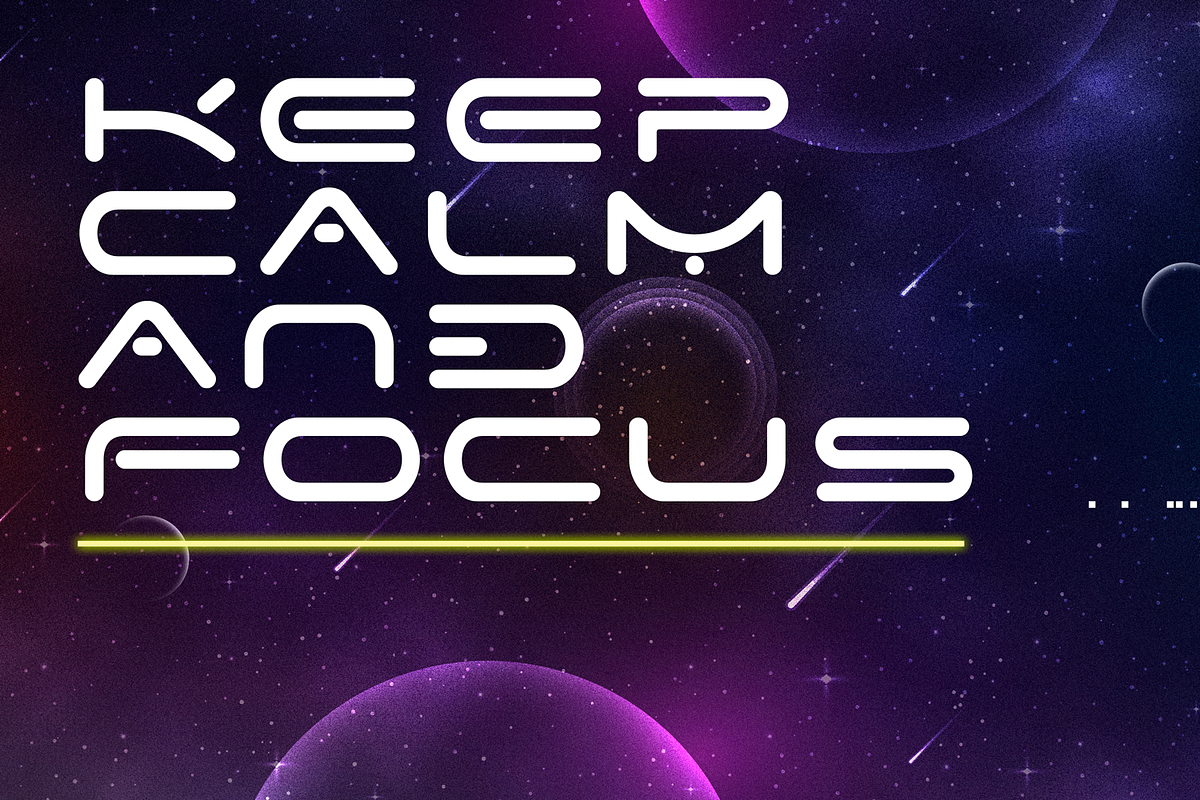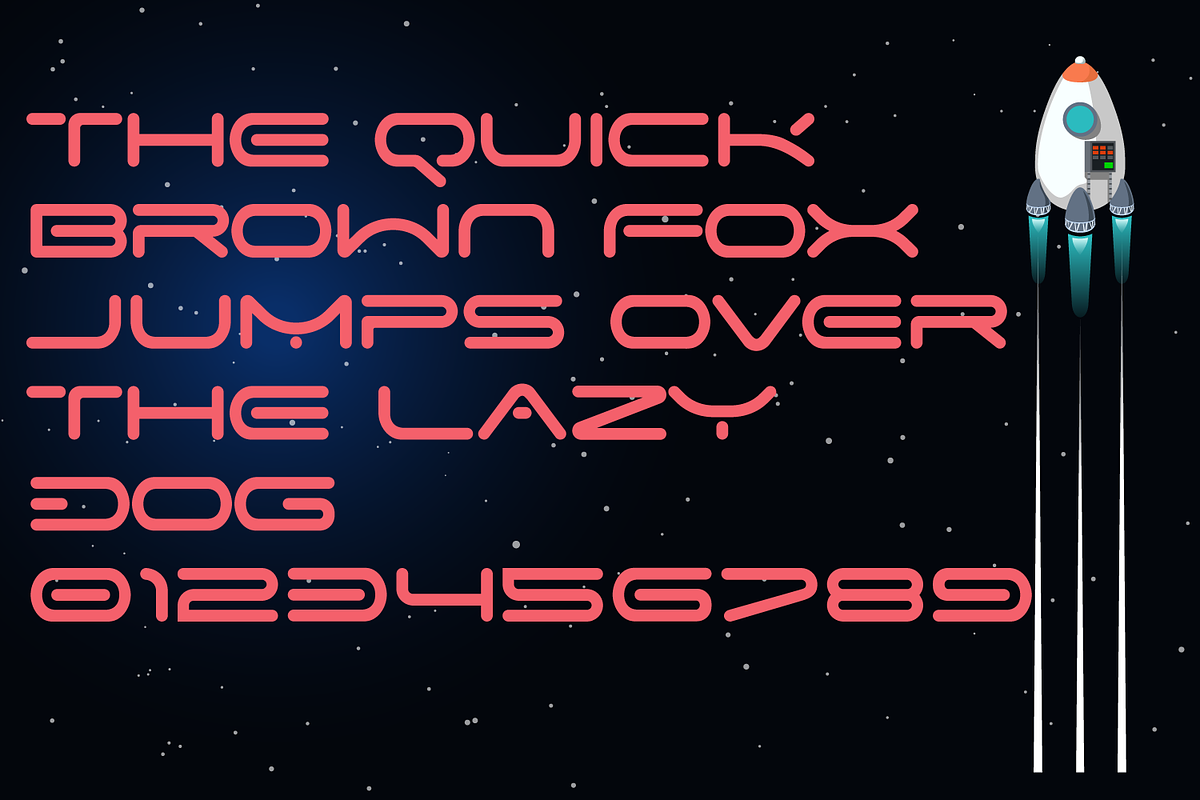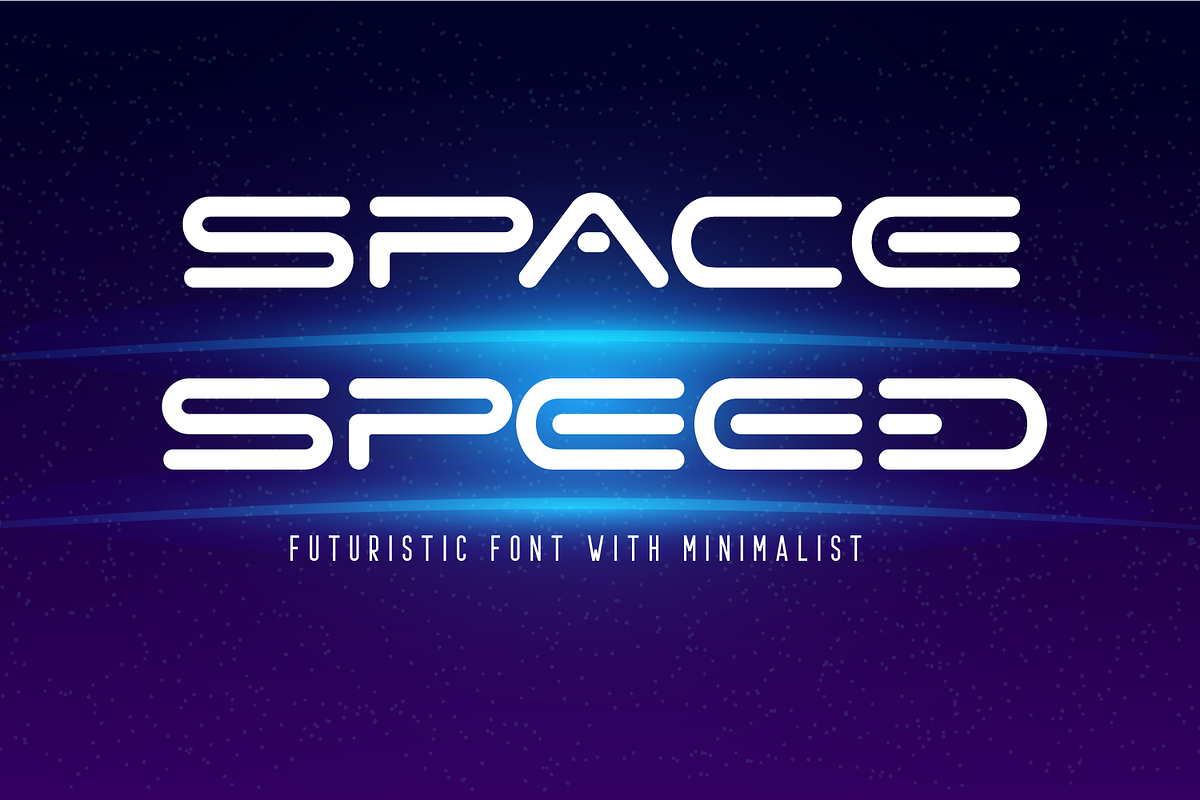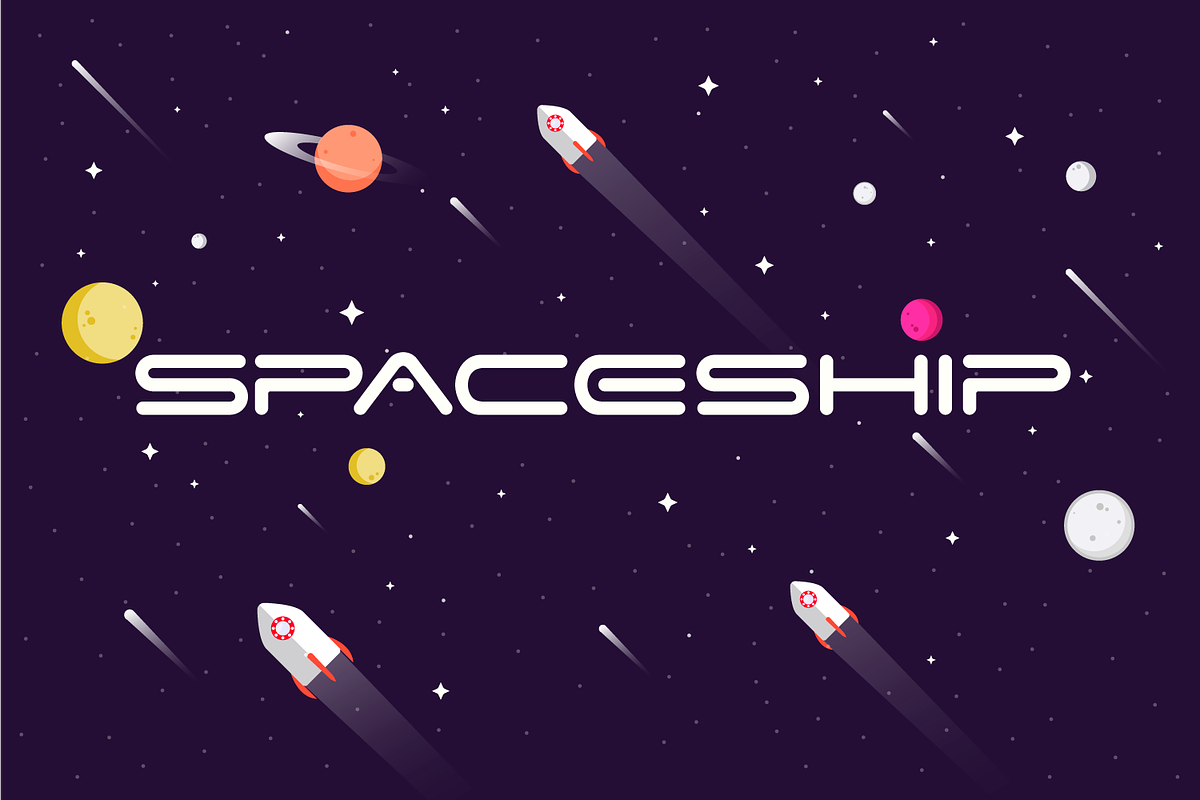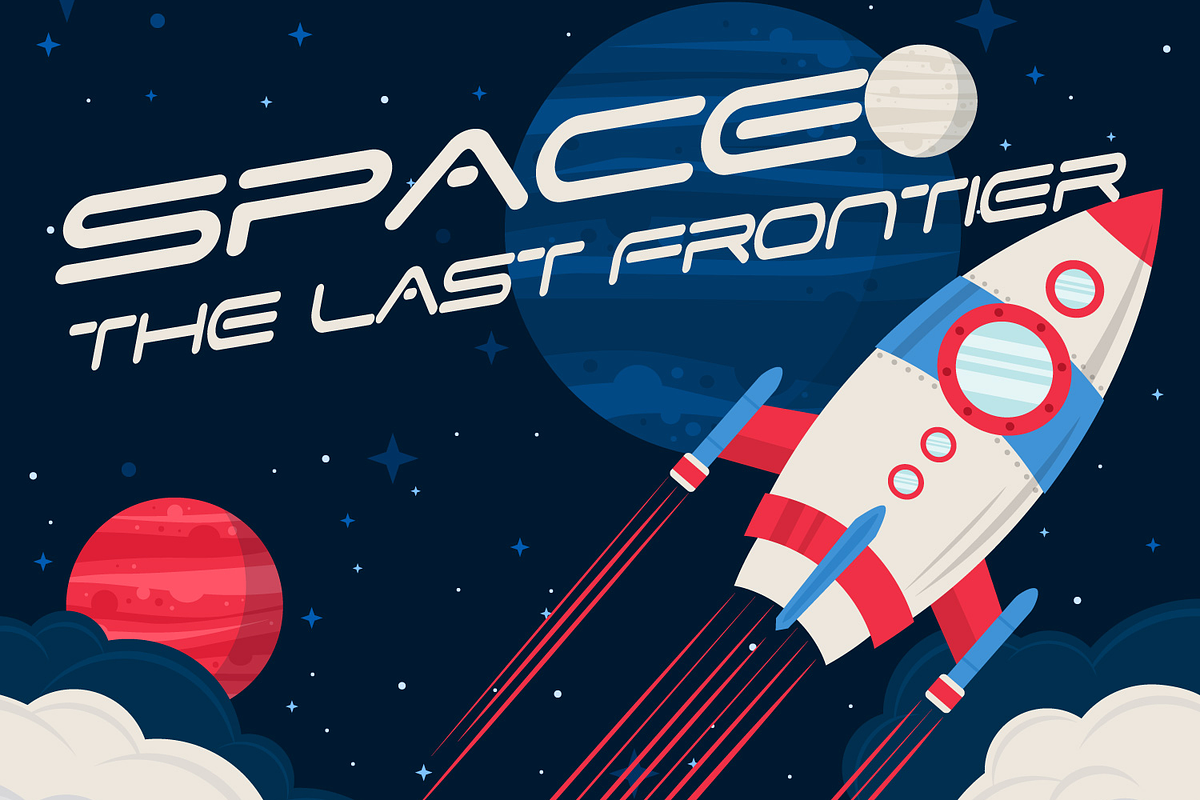
Space Speed Font
Space Speed Font is a futuristic font with minimalist, wide letters. A font with a futuristic edge, geometric corners, perfect for technology theme. It includes English uppercase letters, basic punctuation and numbers. It is recommended to use it at long intervals between letters, but you can customize it perfectly for your own design, use it to create logos, emblems, posters.